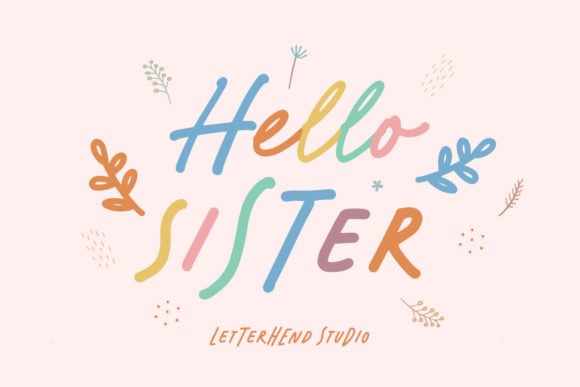
Meet the Perfect Pair: Hello Sister Font
Who hasn’t had that moment where they’re browsing through a beautifully designed magazine, and the words just jump out at you? The combination of elegant typography and clever design makes you go, ‘Aha! This is what I want my brand to look like!’ That’s exactly what happens when you come across the lovely Hello Sister Font, a gorgeous duo font that combines the sophistication of a sans serif with the whimsy of a script.
Whether you’re a designer looking for the perfect font to match your feminine brand or a business owner wanting to elevate your skincare brand’s aesthetic, Hello Sister Font is the perfect choice. This versatile font is ideal for women’s magazines, wedding invitations, personal branding, and more, making it a valuable addition to any designer’s toolkit.
Hello Sister Font Key Features
- Font Family: Hello Sister is a sans-serif font family.
- Unique Characteristics: Hello Sister features a friendly, approachable feel with rounded edges and a subtle x-height.
Hello Sister Font Review
Overall, I’m impressed with the “Hello Sister Font”! It’s a beautiful, elegant script font that’s perfect for creating feminine and whimsical designs. ✨ The font is highly customizable, making it easy to adjust the letter spacing, size, and color to fit your project’s needs.
- Beautiful, elegant script font
- Perfect for feminine and whimsical designs
- Supports a wide range of languages
One thing that works particularly well with this font is its ability to add a touch of sophistication to any design. It’s perfect for creating invitations, wedding designs, and other special occasion graphics. ✨ The font is also highly legible, making it easy to read even at smaller font sizes.
However, there are a few limitations to consider. ⚠️ The font may not be suitable for designs that require a more modern or edgy look. Additionally, the font may not be as versatile as some other script fonts on the market.
Overall, I’m really impressed with the “Hello Sister Font”. It’s a beautiful, elegant script font that’s perfect for creating feminine and whimsical designs. While it may have some limitations, it’s definitely worth considering for your next design project.
The Hello Sister Font is ideal for:
- Baby shower invitations and decorations
- Personalized gifts and home decor